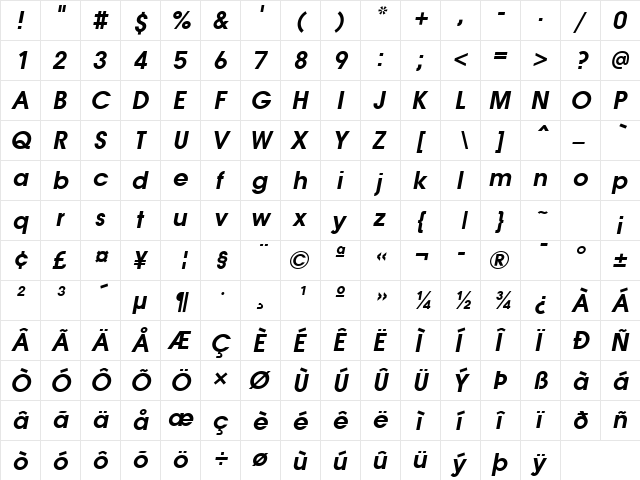
Atlanta DemiOblique Font Preview
Atlanta DemiOblique
Design Context for Atlanta Typeface
Atlanta takes a measured approach to typography — its balanced proportions and neutral character make it a reliable workhorse for both digital and print work. The slanted form adds forward momentum and visual energy.
Pro Tip: Try Atlanta for annotation and caption copy alongside an upright companion — the contrast in angle creates a dynamic but ordered typographic system.